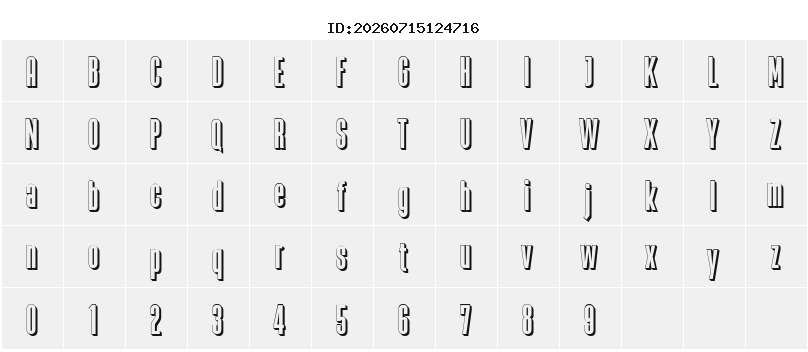
Zacatecas Preview
• Font Name: Zacatecas
• Designer: Fernando Haro
• Manufacturer: deFharo
About Zacatecas.ttf
Zacatecas.ttf is a modern, elegant sans-serif font designed for ultimate readability and visual harmony. Perfect for branding, headlines, web design, and print materials.